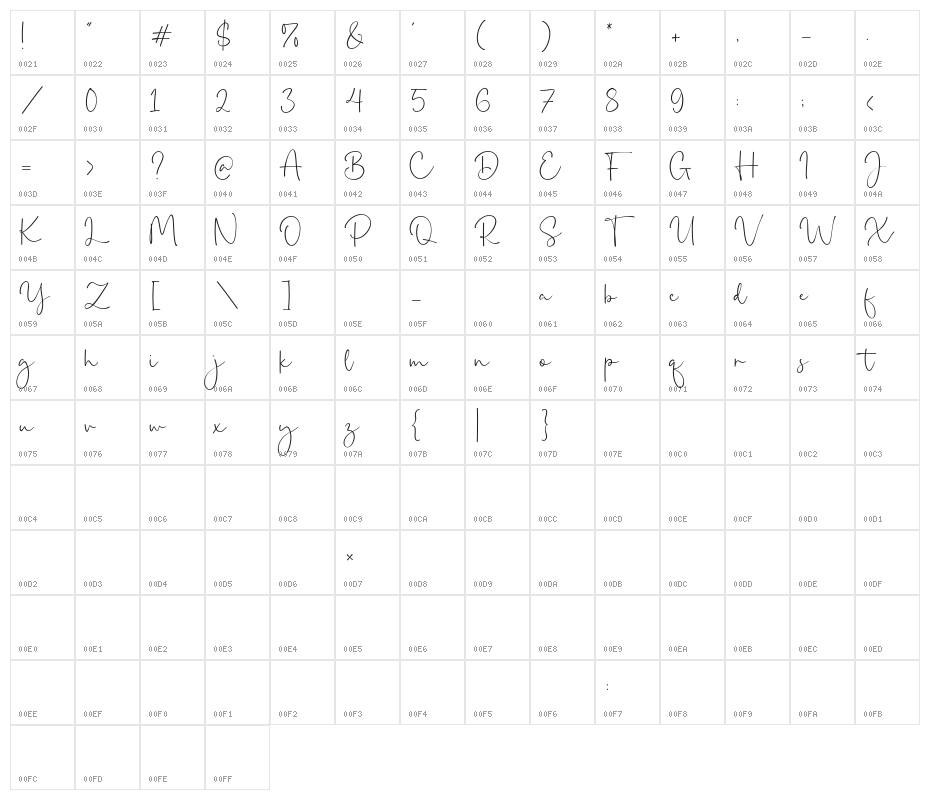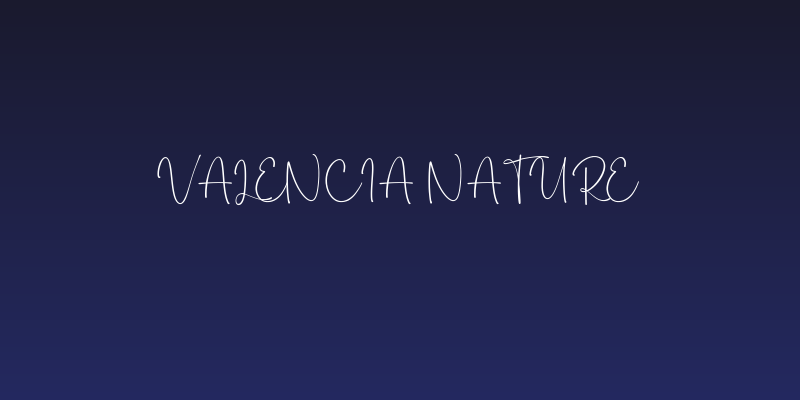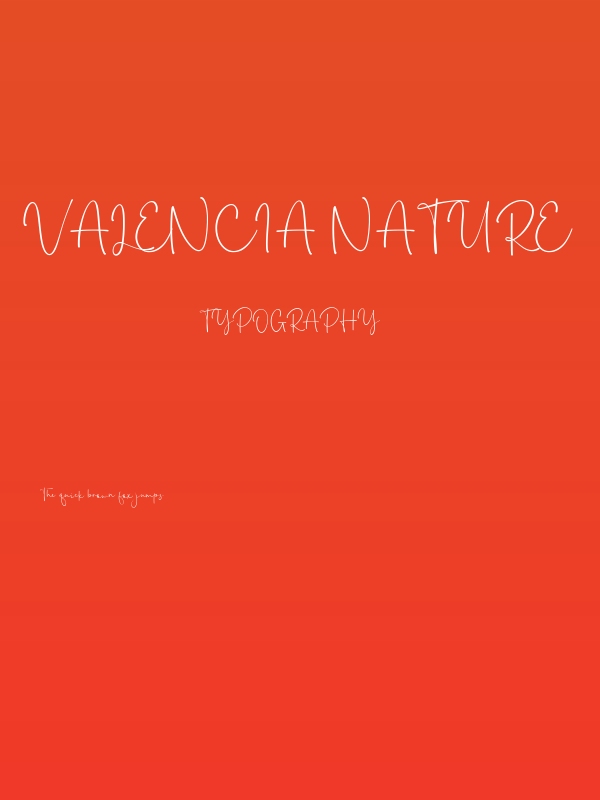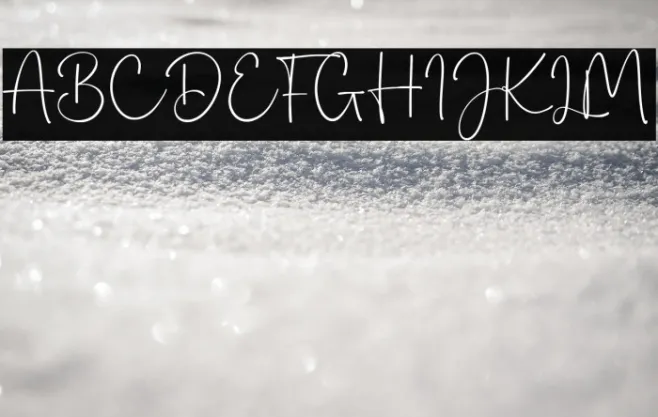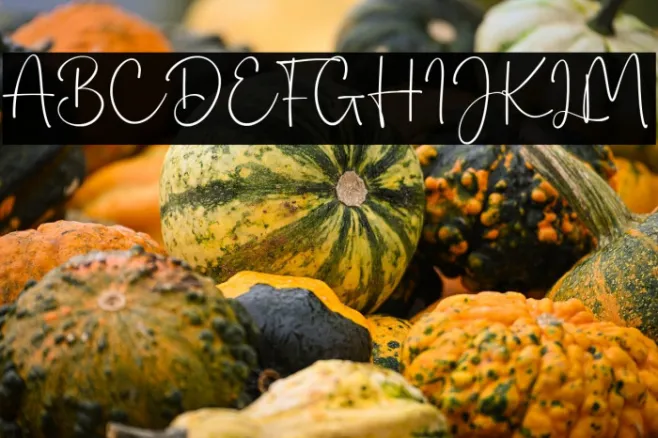
Valencia Nature Font
Valencia Nature Description
A flowing, elegant script font with a handwritten style, featuring smooth curves and a natural, organic feel.
| Use Case | Logos, Invitations, Decorative text. |
| Proposed Projects | Wedding invitations, greeting cards, personal branding. |